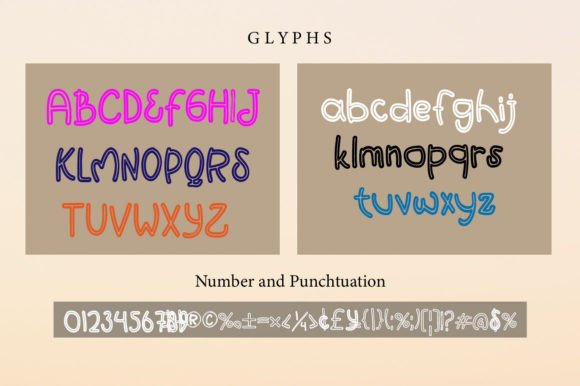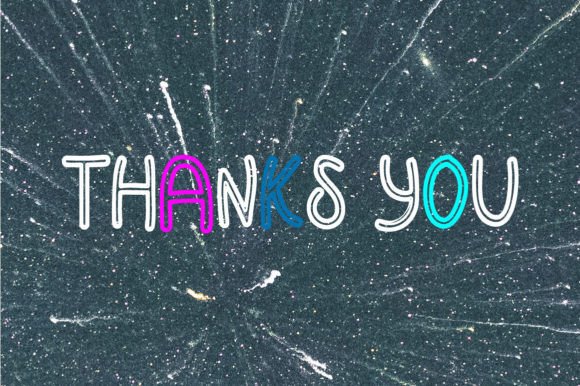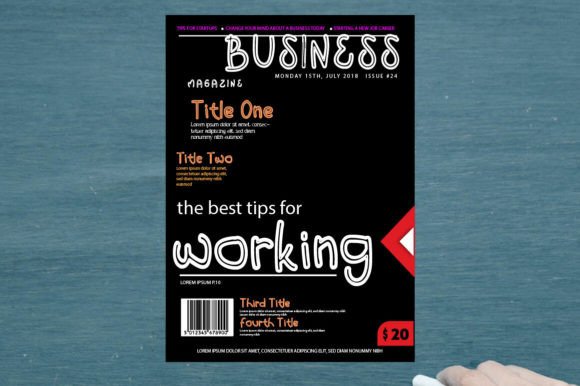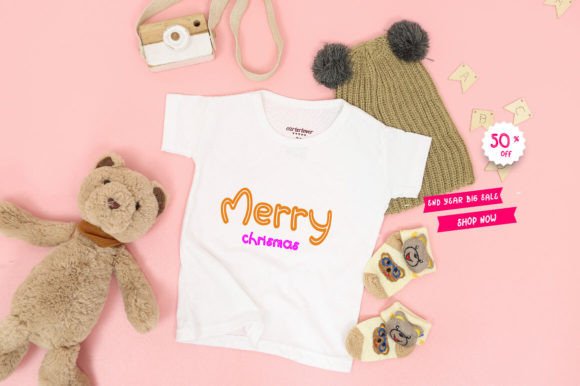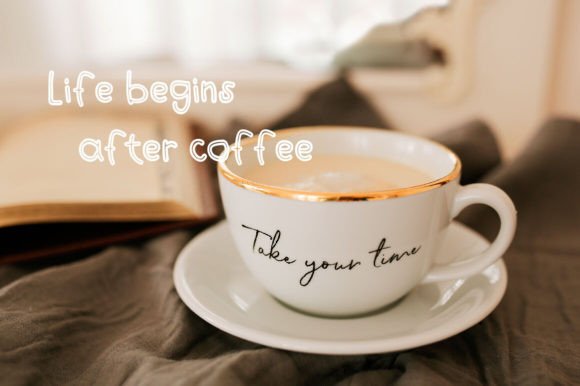
Introducing God Time Font: Elevate Your Designs with a Powerful Display Font
In the world of typography, fonts play a crucial role in conveying messages, evoking emotions, and creating visual impact. For designers and crafters, finding the right font can make all the difference in bringing their creative vision to life. This is where God Time font comes in – a stunning display font designed to make your text stand out and leave a lasting impression.
What is God Time Font?
God Time font is a carefully crafted display font, perfect for headlines, titles, logotypes, magazines, and any type of text that demands attention. Its unique design ensures that your message is not only visible but also easy to read, making it an excellent choice for various design projects.
Key Features of God Time Font
- Display Font: God Time font is specifically designed as a display font, making it ideal for large-scale text applications where visual impact is crucial.
- High Readability: Despite its bold and dramatic appearance, God Time font maintains high readability, ensuring that your message is conveyed clearly and effectively.
- Versatility: This font can be used across various design projects, including but not limited to headlines, titles, logotypes, magazines, posters, and more.
- Emotional Connection: The font’s unique design elements are crafted to evoke a sense of drama or impact, allowing designers to create an emotional connection with their audience.
Use Cases for God Time Font
God Time font’s versatility makes it suitable for a wide range of applications. Here are some use cases where this font truly shines:
- Headlines and Titles: Use God Time font to create eye-catching headlines and titles that grab attention and draw readers in.
- Logotypes and Branding: The font’s unique design makes it an excellent choice for logotypes and branding projects where a memorable visual identity is essential.
- Magazines and Editorials: God Time font can add a touch of drama and sophistication to magazine layouts, making it perfect for editorial design.
- Posters and Flyers: Create visually striking posters and flyers with God Time font, ensuring your message stands out in a crowded space.
God Time font offers several benefits for designers and crafters looking to elevate their designs:
- Time-Saving: With God Time font, designers can quickly create visually appealing text elements without spending hours on custom typography.
- Consistency: The font’s consistent design ensures that your brand’s visual identity remains cohesive across various design projects.
- Creativity Boost: God Time font’s unique design elements can inspire creativity, helping designers to experiment with new ideas and approaches.
God Time font is a powerful display font designed to make your text stand out and leave a lasting impression. Its unique design, high readability, and versatility make it an excellent choice for various design projects. Whether you’re a designer or crafter, God Time font can help elevate your designs and bring your creative vision to life. With its numerous benefits and use cases, God Time font is an excellent addition to any design toolkit.